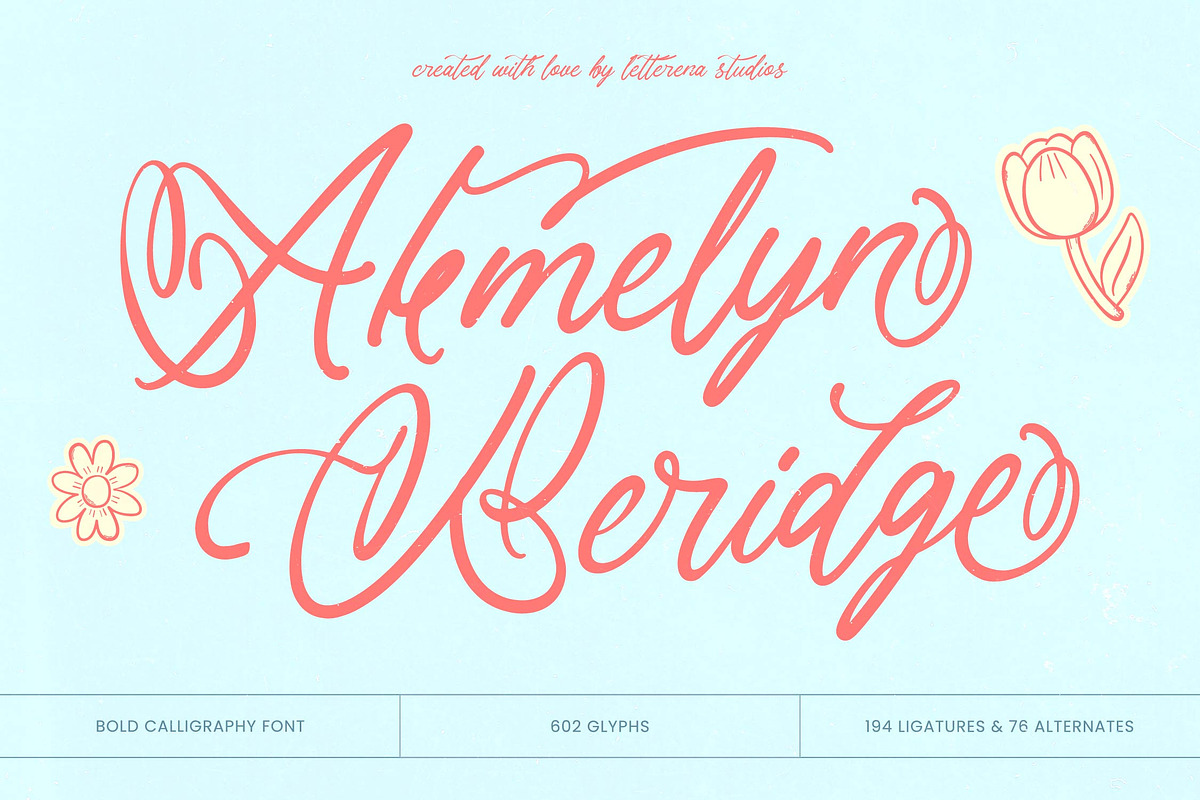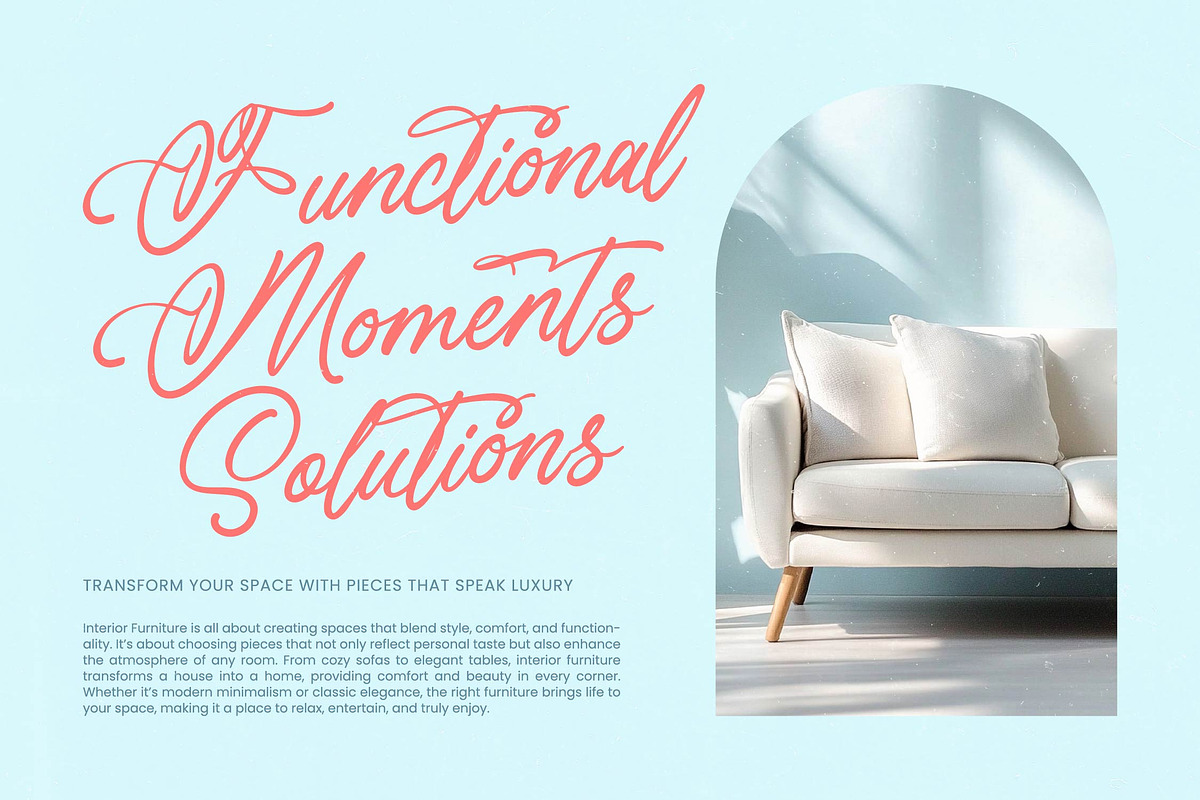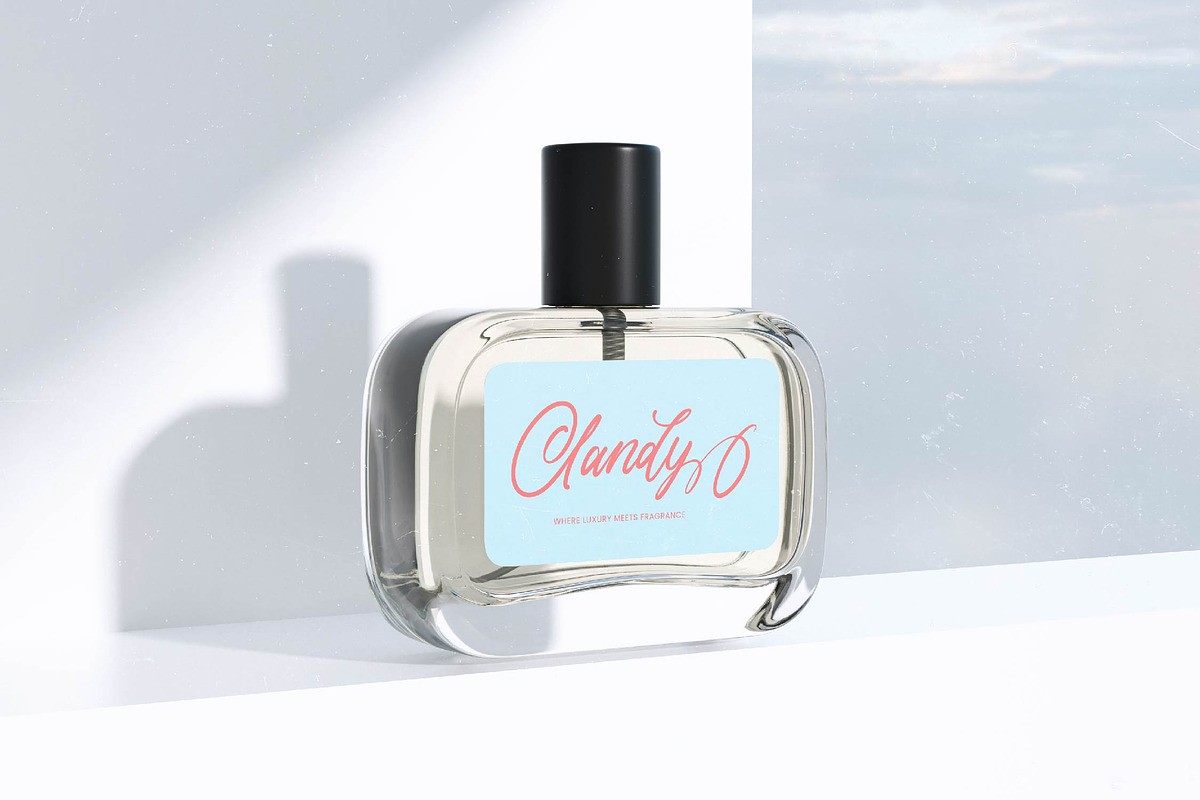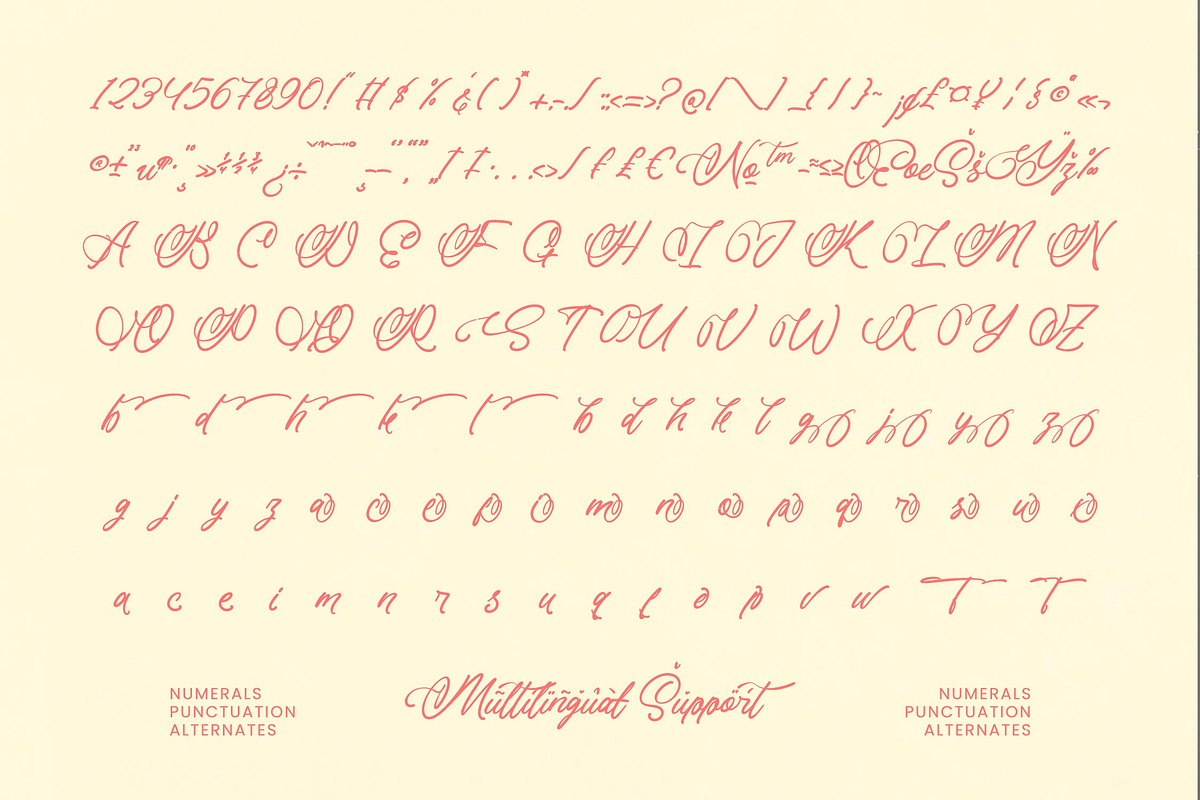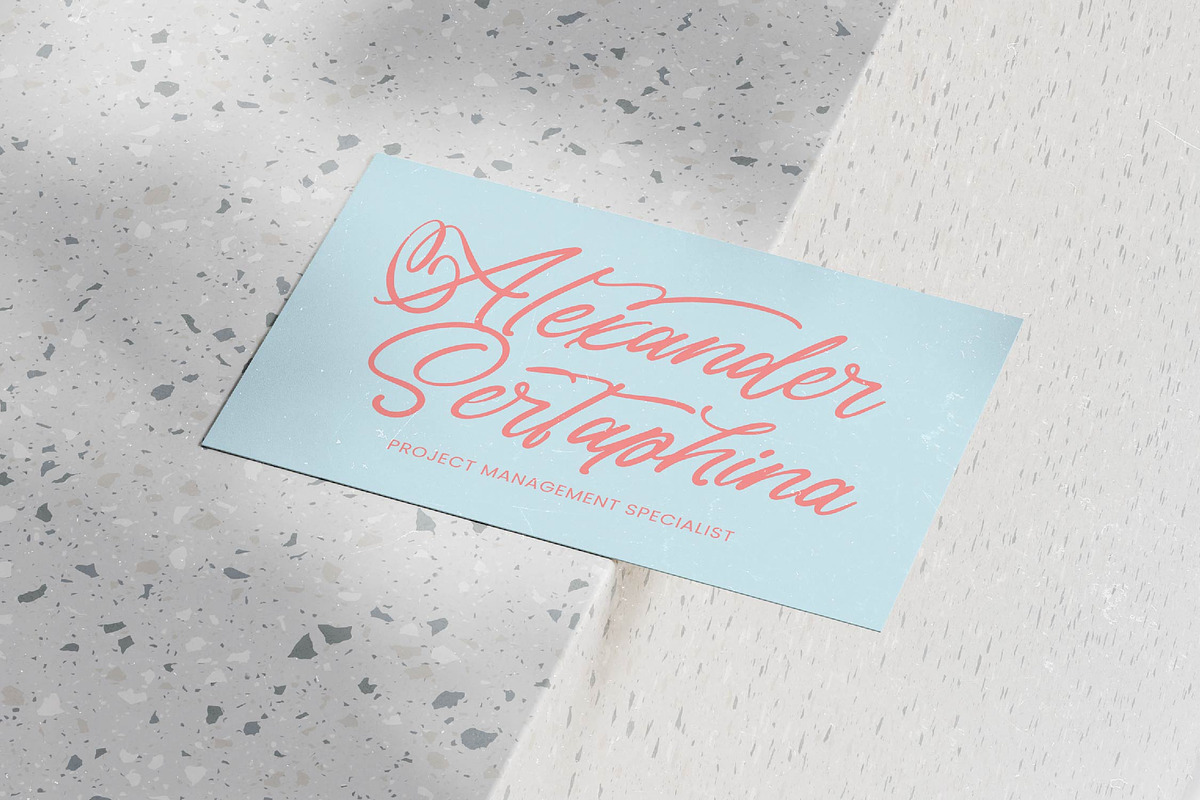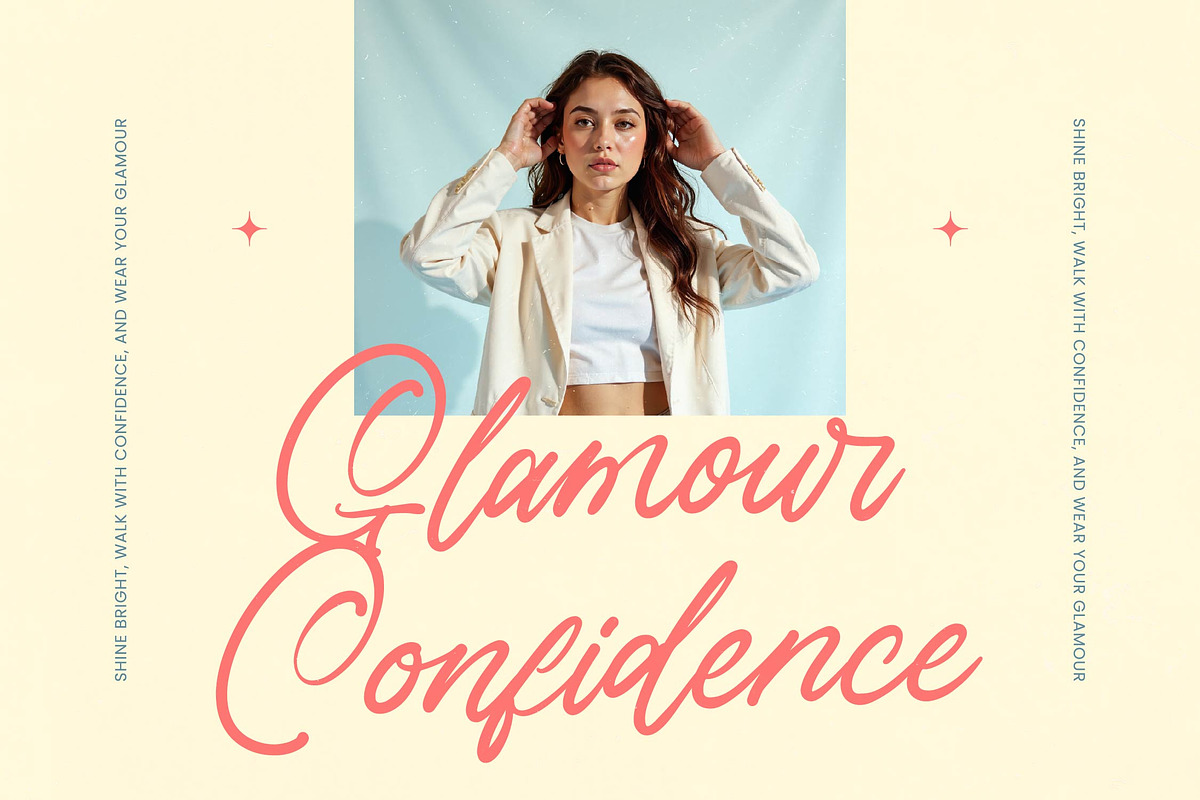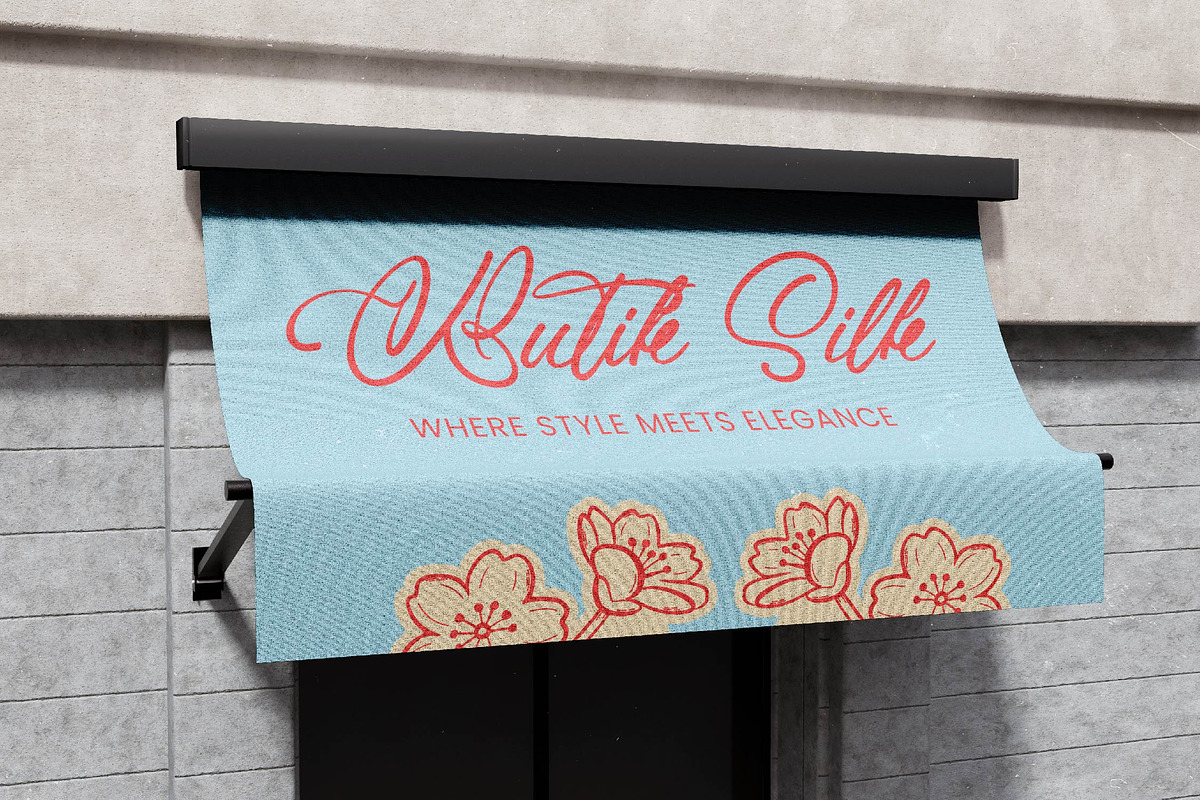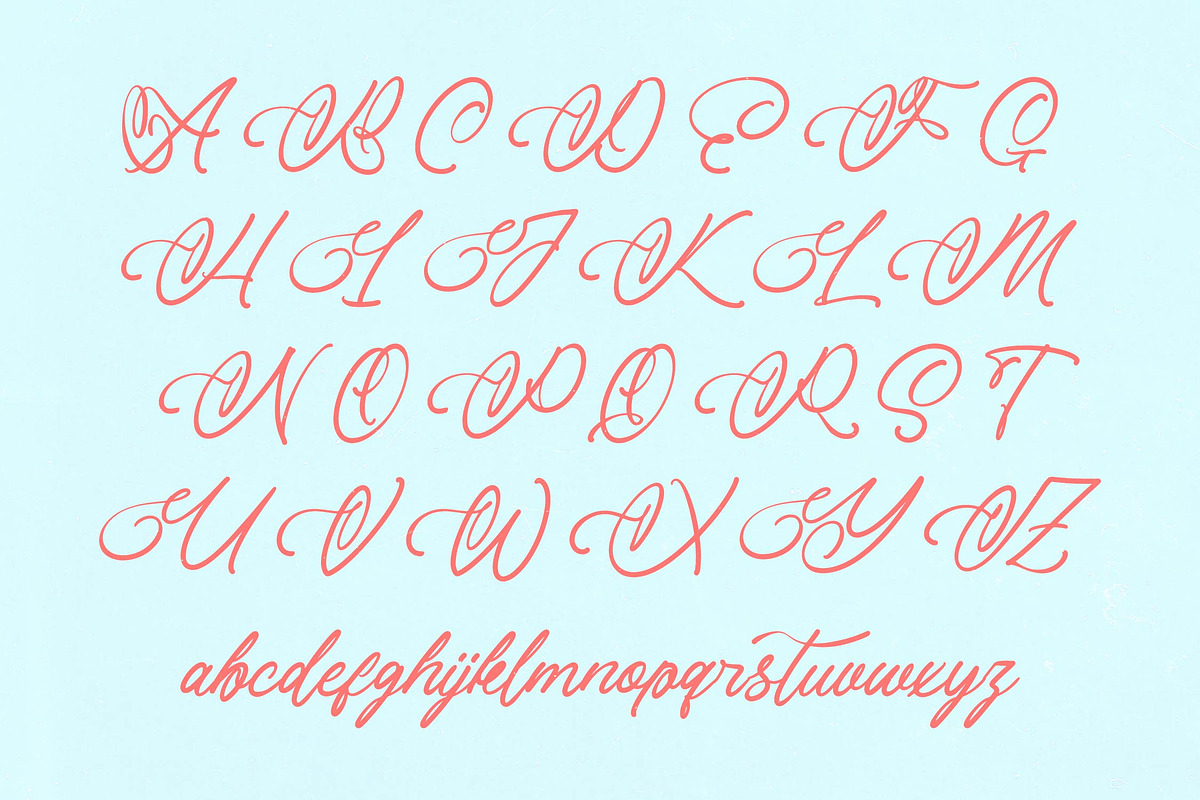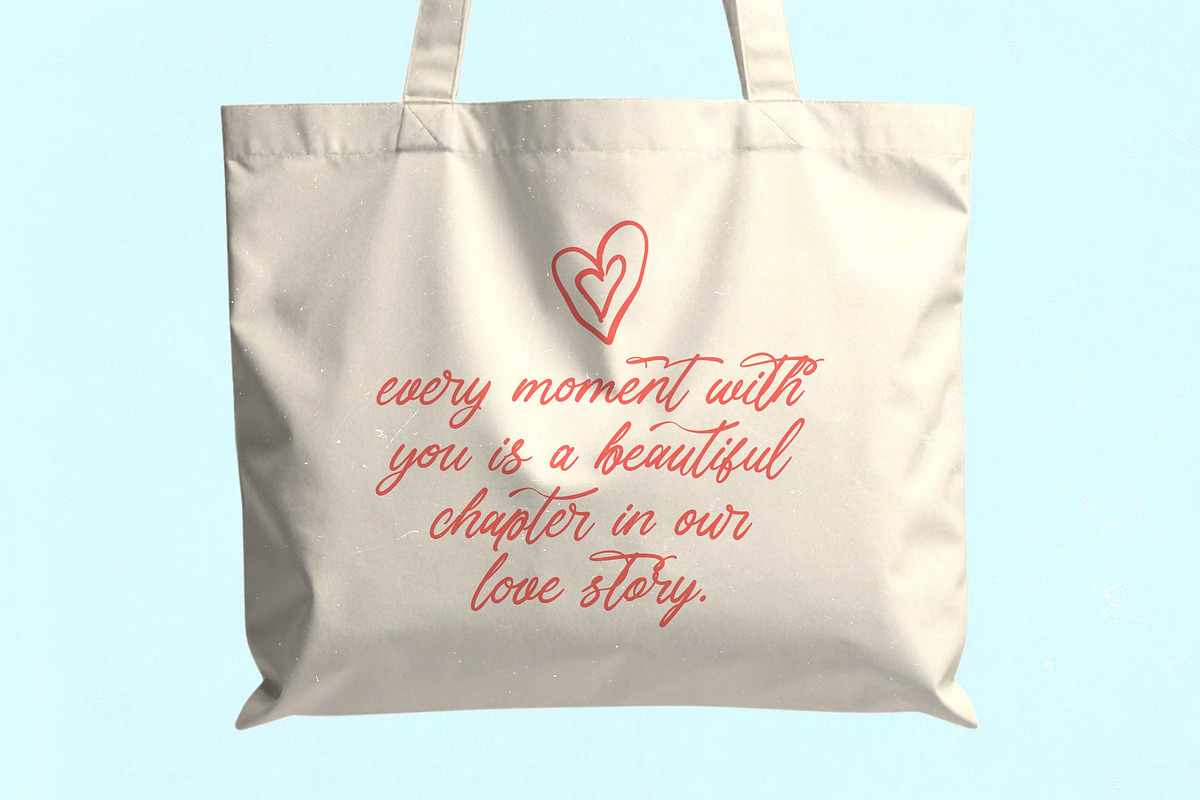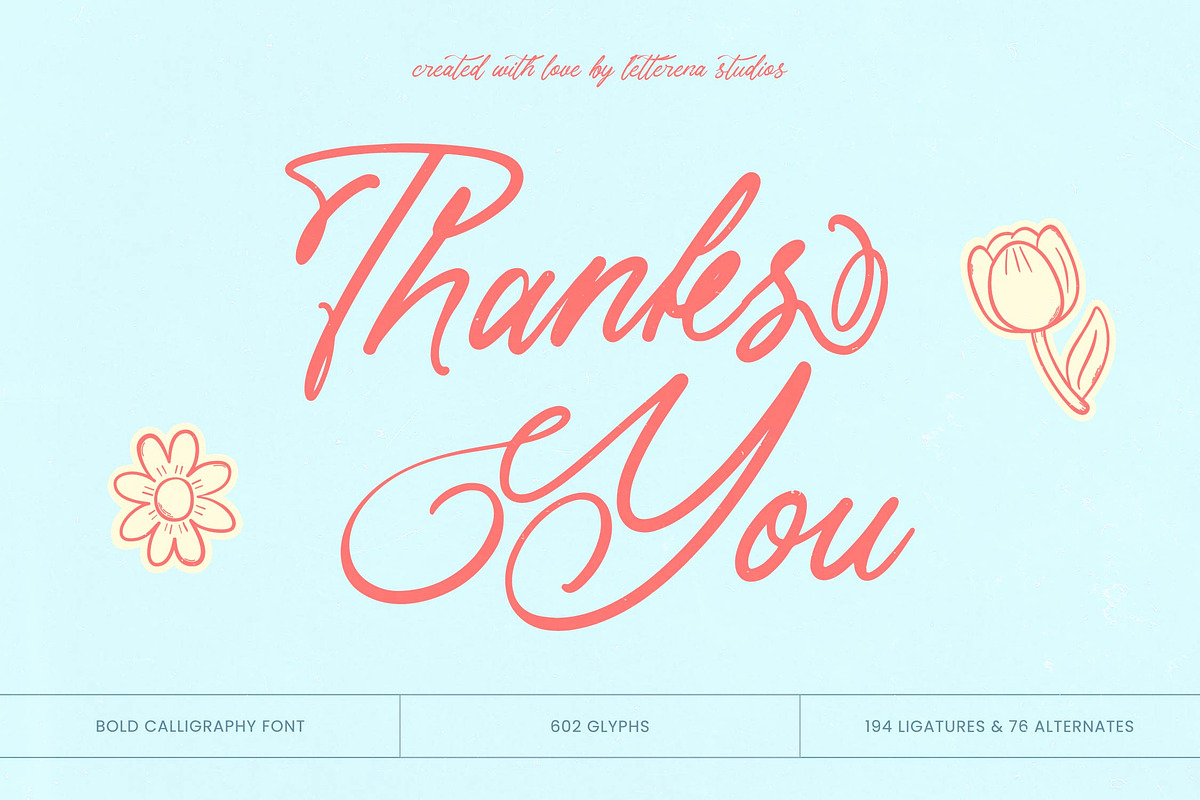
Akmelyn Beridge Bold Calligraphy
Akmelyn Beridge - Bold Calligraphy Font , Introduce unparalleled elegance with Akmelyn Beridge - Bold Calligraphy Font. This exquisite typeface masterfully blends expressive traditional calligraphy with contemporary boldness, creating an instantly captivating visual statement. Its smooth, flowing lines and generous swashes impart sophisticated charm, ensuring your typography is both profoundly artistic and memorable.
Unlock expansive creative potential with Akmelyn Beridge - Bold Calligraphy Font’s rich feature set. Boasting 602 glyphs, including 194 ligatures and 76 alternates, this font offers exceptional versatility. With its extensive multilingual support, Akmelyn Beridge - Bold Calligraphy Font adapts seamlessly across global markets, making it incredibly versatile for international design needs.
Akmelyn Beridge - Bold Calligraphy Font is perfectly suited for a wide array of high-impact applications. It shines in luxury branding, bespoke wedding invitations, sophisticated product packaging, and heartfelt greeting cards. This font injects an authentic, handcrafted sensibility, transforming ordinary text into compelling visual art for a memorable impression.
Elevate your design toolkit and distinguish creations with the unique grace of Akmelyn Beridge - Bold Calligraphy Font. Its ability to convey both strength and warmth makes it an indispensable asset for infusing projects with personalized flair and a premium aesthetic. Choose Akmelyn Beridge - Bold Calligraphy Font to craft truly engaging and visually rich narratives.